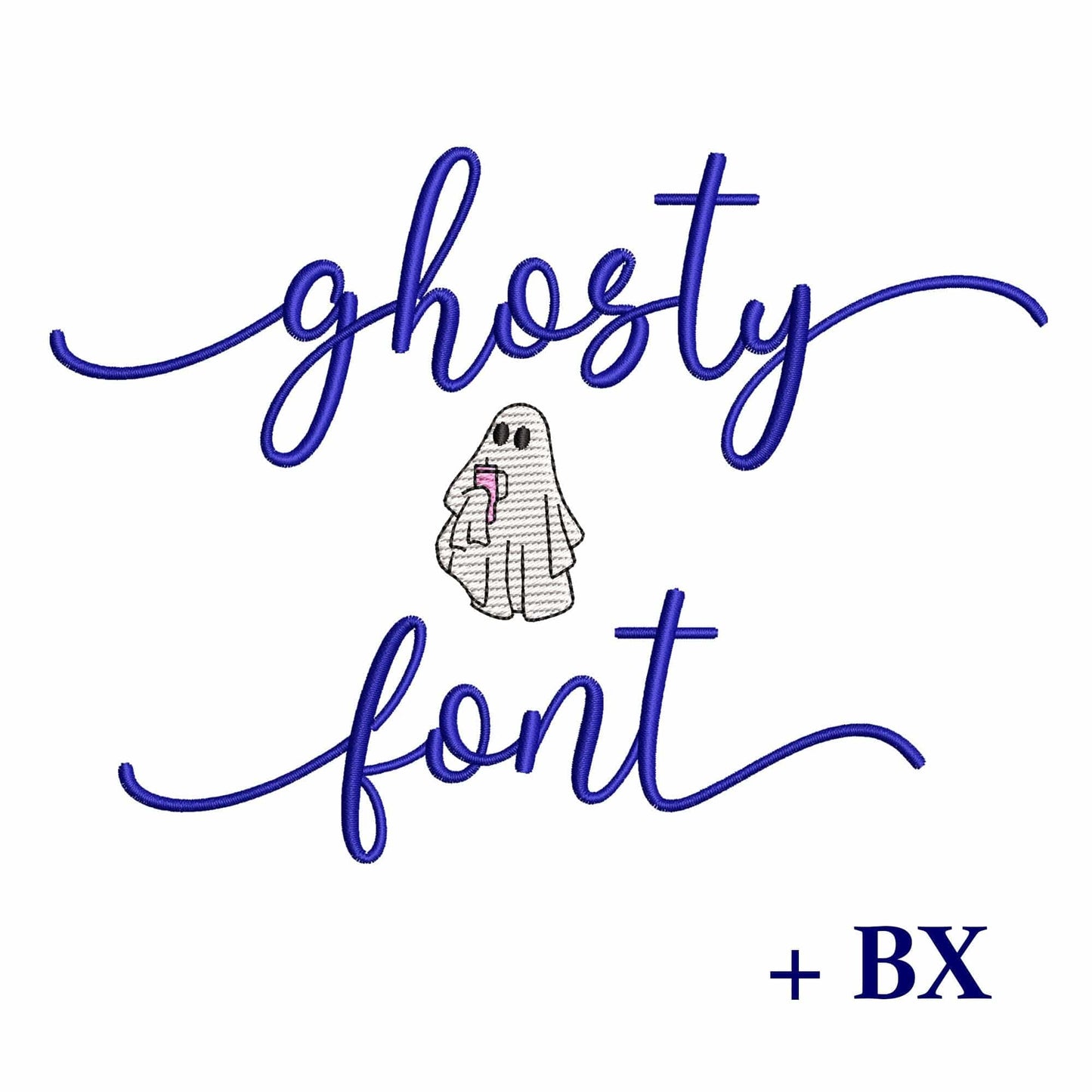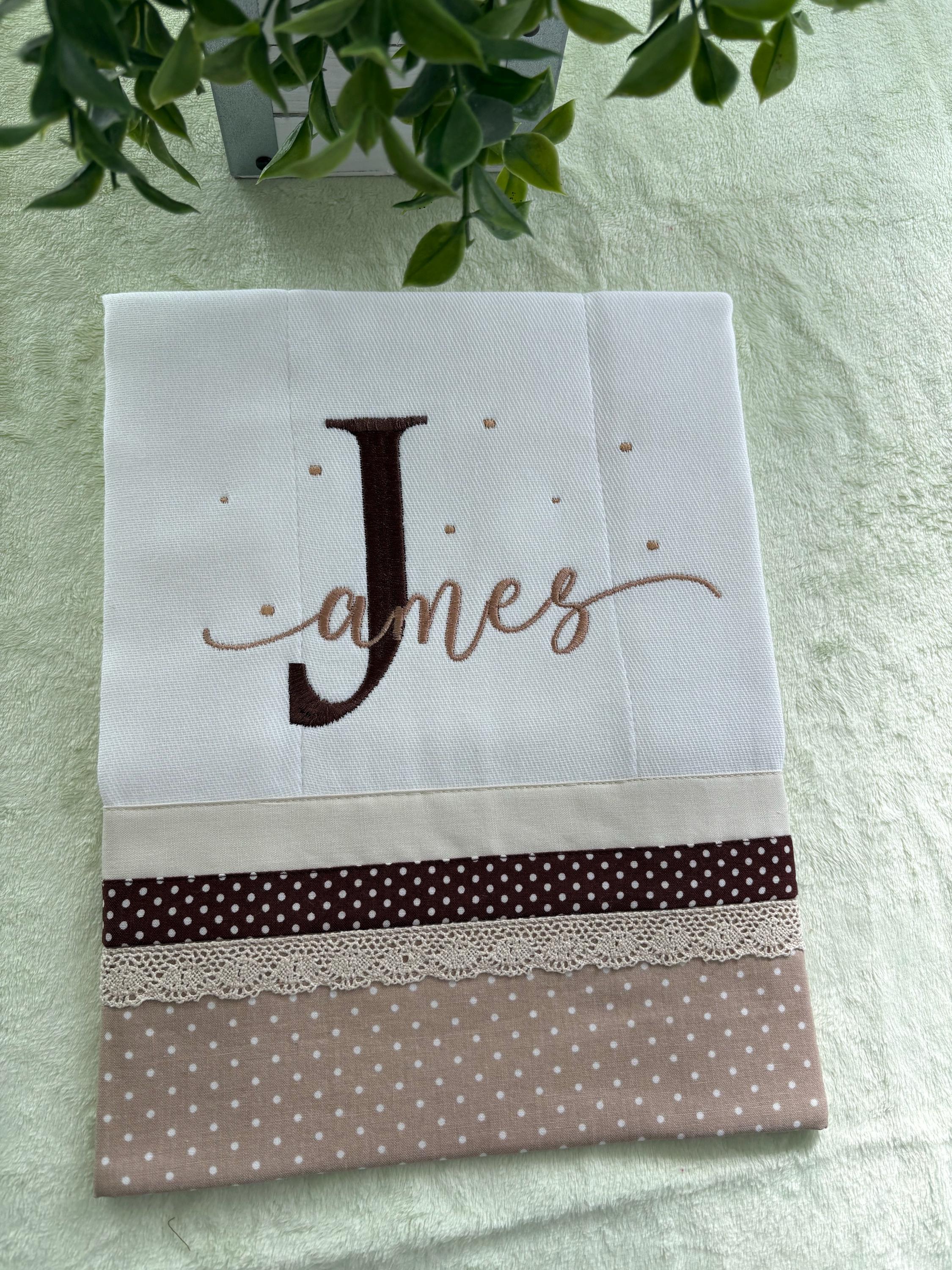
Ghosty with tails - Embroidery font
• Included: a-z (lowercase), a-z (with left tail), right tail, ghost
This machine embroidery font with tails works well for Halloween shirts, trick-or-treat bags, towels, gifts, and spooky seasonal projects.
A strong choice for holiday makers who want playful script lettering for Halloween embroidery.